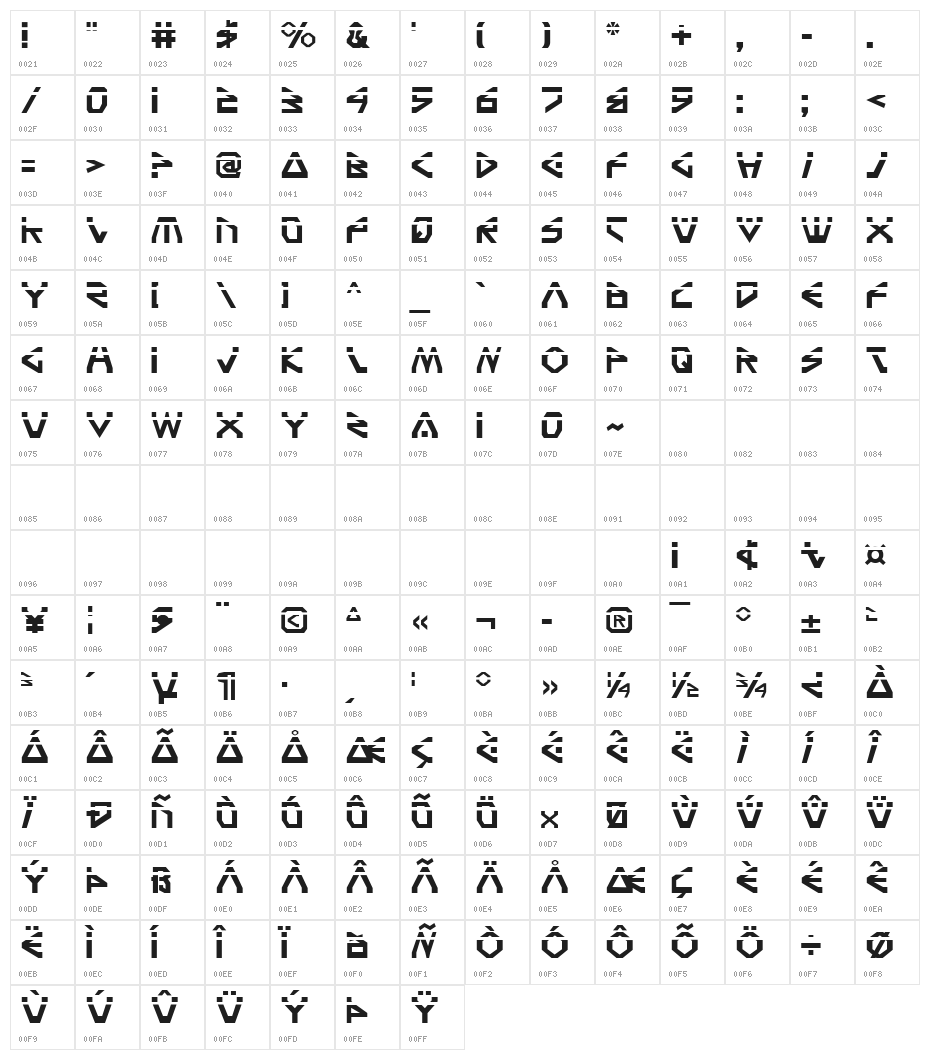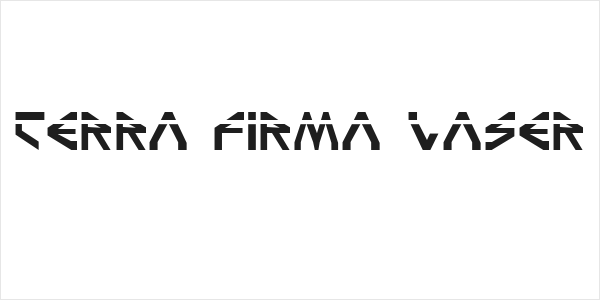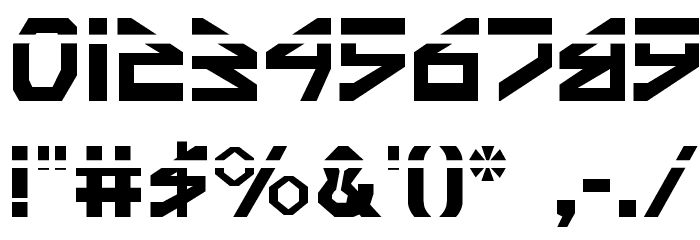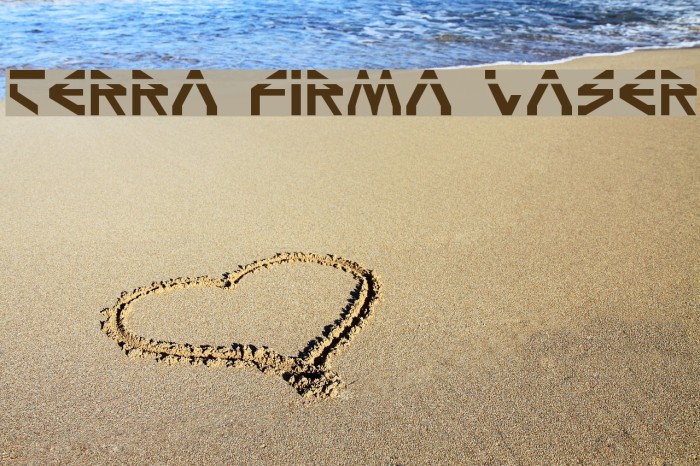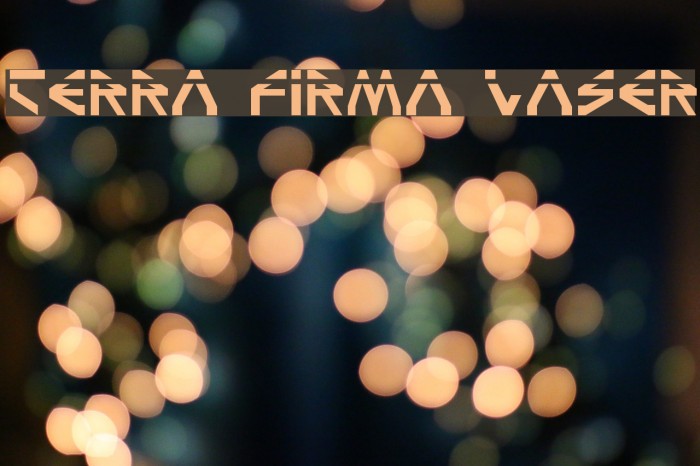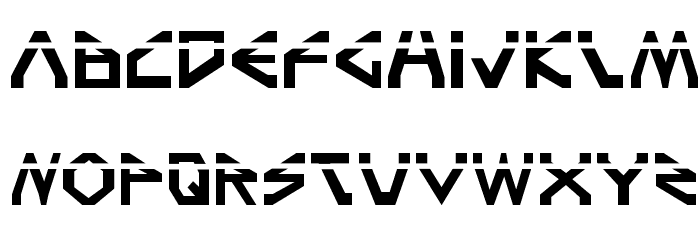
Terra Firma Laser Font
Terra Firma Laser Description
This font features a futuristic and geometric design, characterized by sharp angles and bold lines. The letters are constructed with a combination of straight edges and triangular shapes, giving it a distinct, modern appearance. The uppercase and lowercase letters maintain a consistent style, with a strong emphasis on symmetry and uniformity. The numerals and special characters follow the same design principles, ensuring a cohesive look across all elements. This font is highly stylized, making it ideal for projects that require a bold and eye-catching typeface.
| Proposed Projects | Ideal for sci-fi themed designs, video game graphics, technology branding, and futuristic posters. |